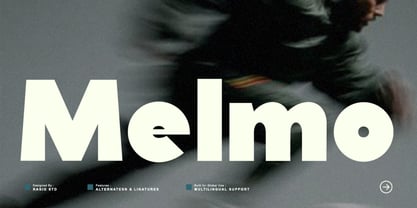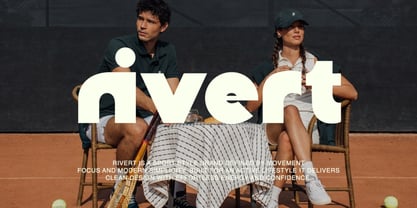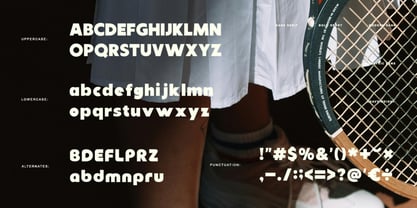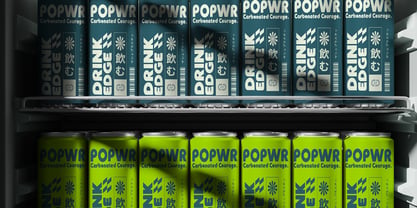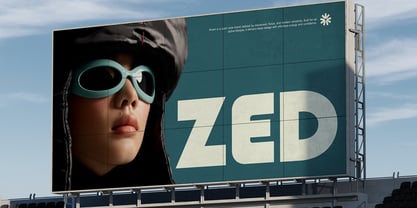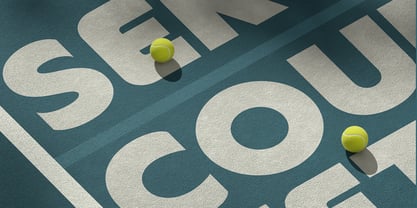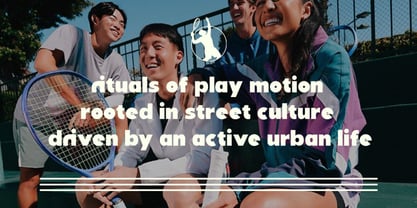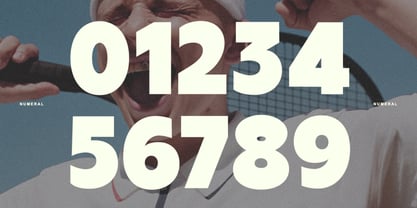
Melmo
La familia tipográfica Melmo fue diseñada por Fajar Indra y publicada por Rasio Studio. Melmo contiene 1 estilos. Más información sobre esta familia
Melmo is a powerful bold sport sans font crafted for high-energy visuals and fast-paced design. With a geometric backbone and thick, assertive line weight, Melmo makes an impact in headlines, branding, and performance-driven layouts. Alternates and ligatures enhance creative expression, while multilingual support ensures global accessibility. Melmo is ideal for designers seeking a bold, athletic font that captures motion, strength, and modern street culture. It works perfectly across branding for fitness products, urban apparel, sports events, esports visuals, posters, social media templates, and high-impact UI headlines.